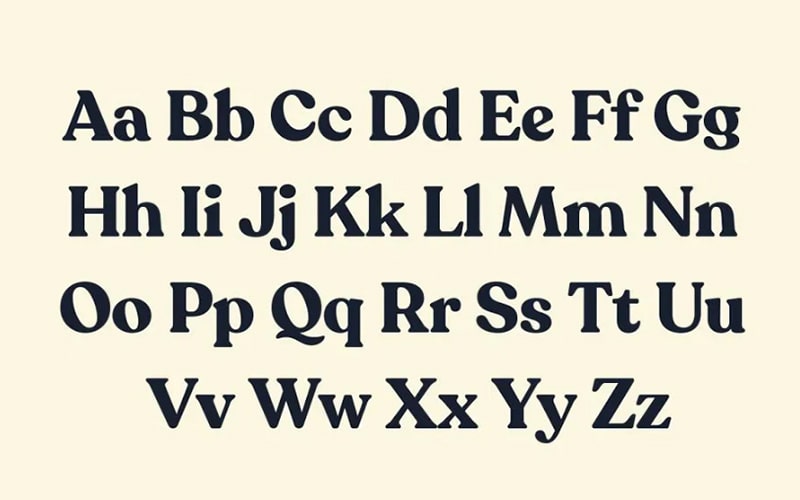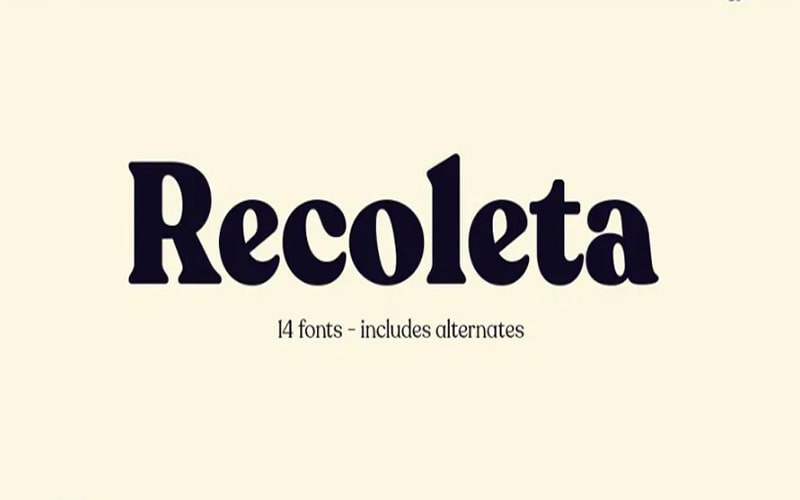
Recoleta font is a Basic Sans serif typeface. The texture of this font has fresh, modern, and beautiful diagraphs that make it toothsome and radiant. This elegant font was designed by Jorge Cisterna.
It is published by Latinotype. It was published on June 5, 2018. After a few modifications, it was first updated on January 26, 2019. It contains 14 unique styles.
The stylistic alternates contain a number of different characters that give an outstanding look to logos or business cards. Multi weights help to find the superb typography colors of your projects.
These weights are well-suited for body text and high-impact headlines. A free version font is available in characters including all lowercase and uppercase letters. Let’s take a single look at its texture.
Styles are Thin, Light, Regular, Medium, SemiBold, Bold, Black, Alt Thin, Alt Light, Alt Regular, Alt Medium, Alt SemiBold, Alt Bold, and Alt Black font styles.